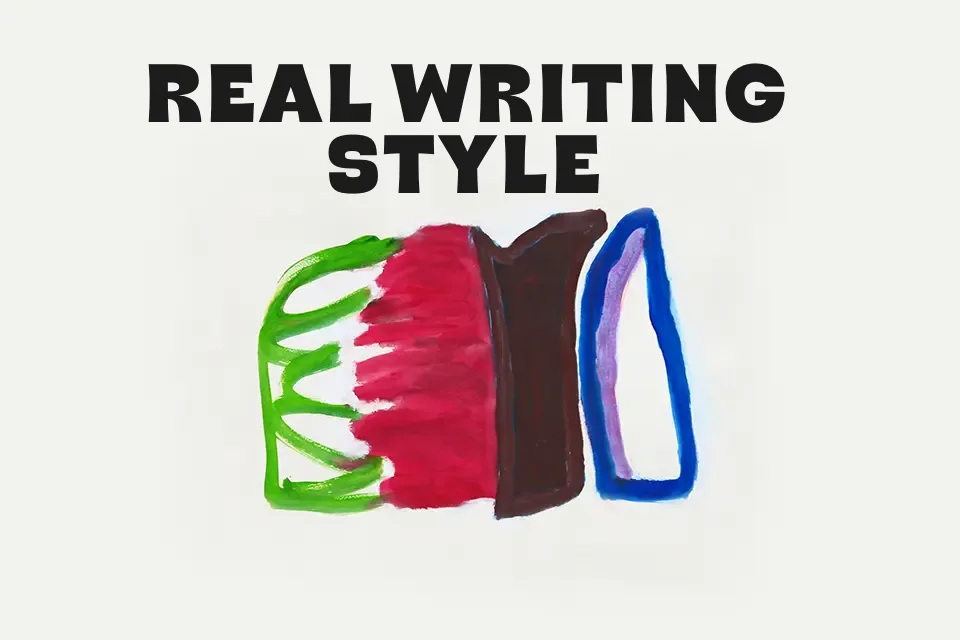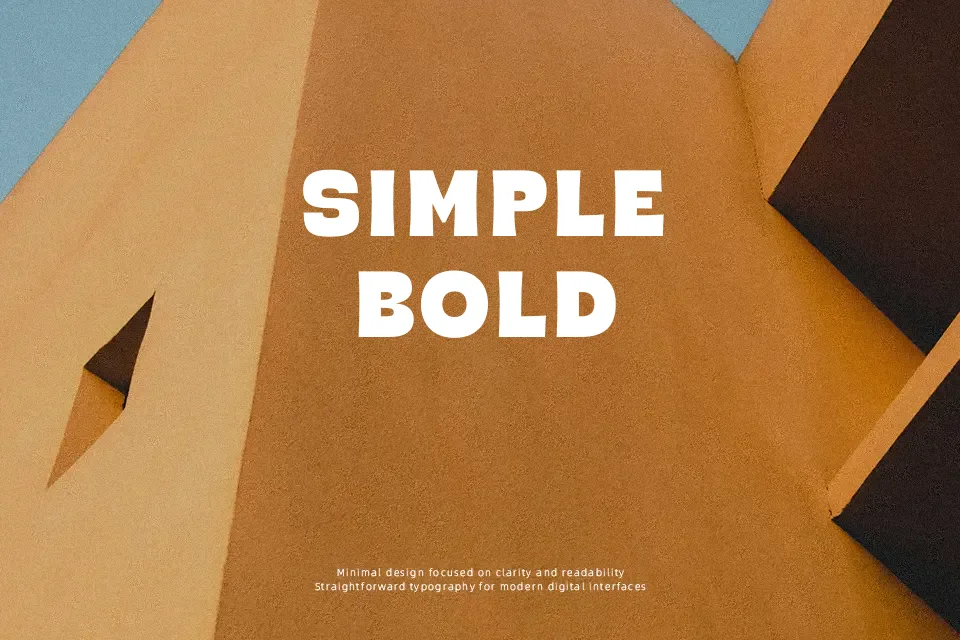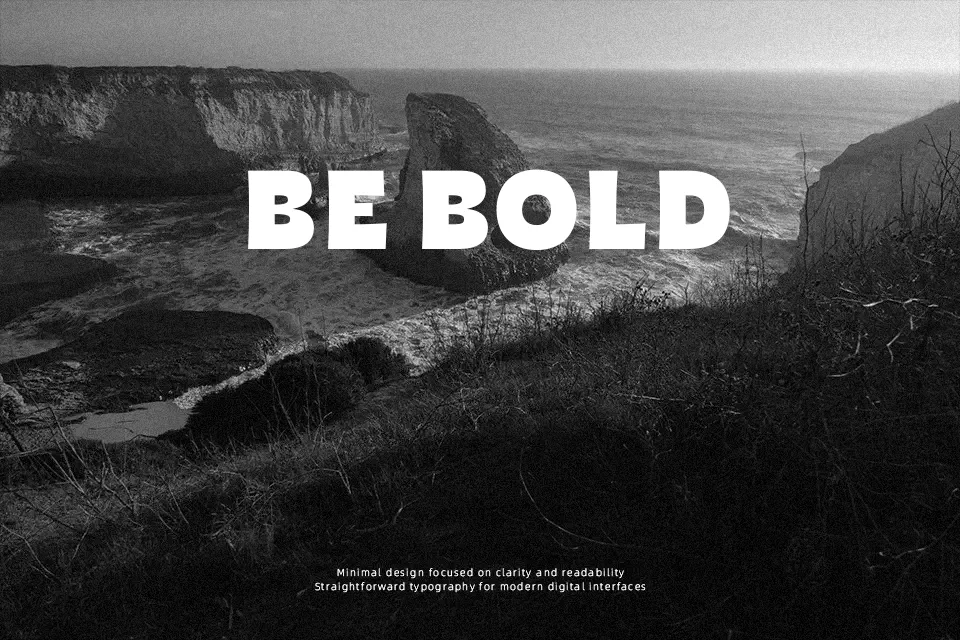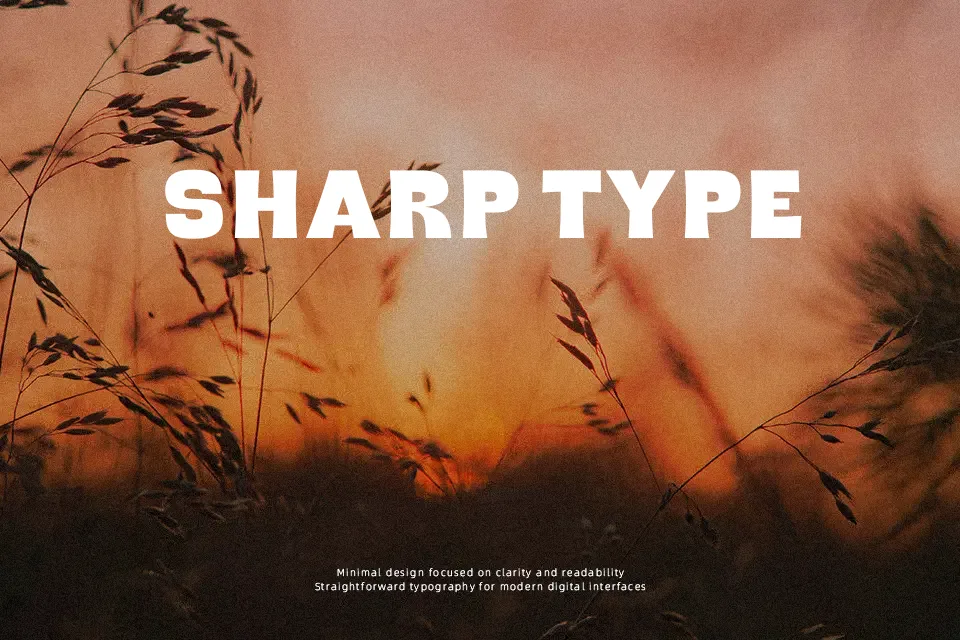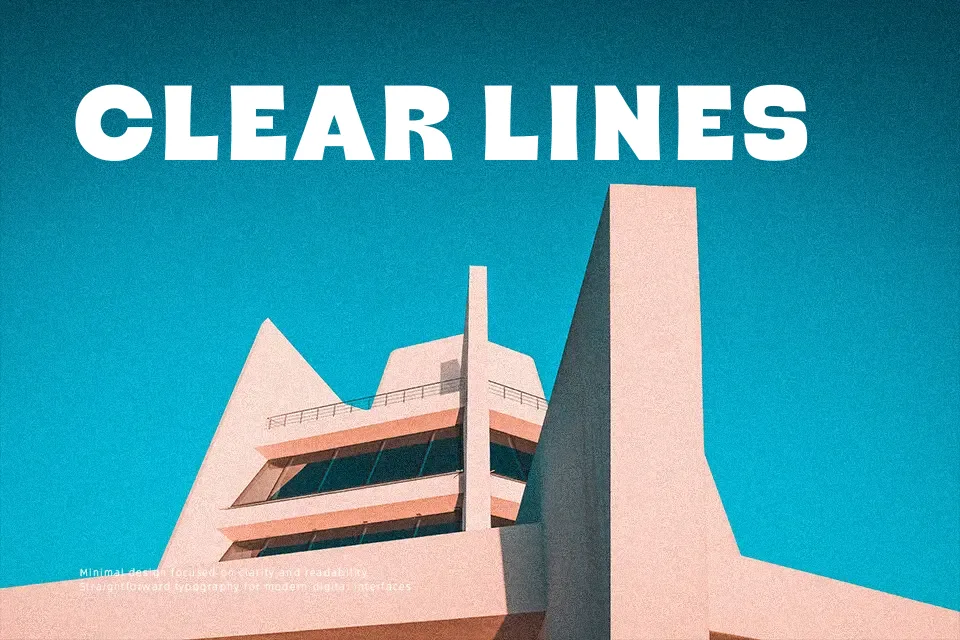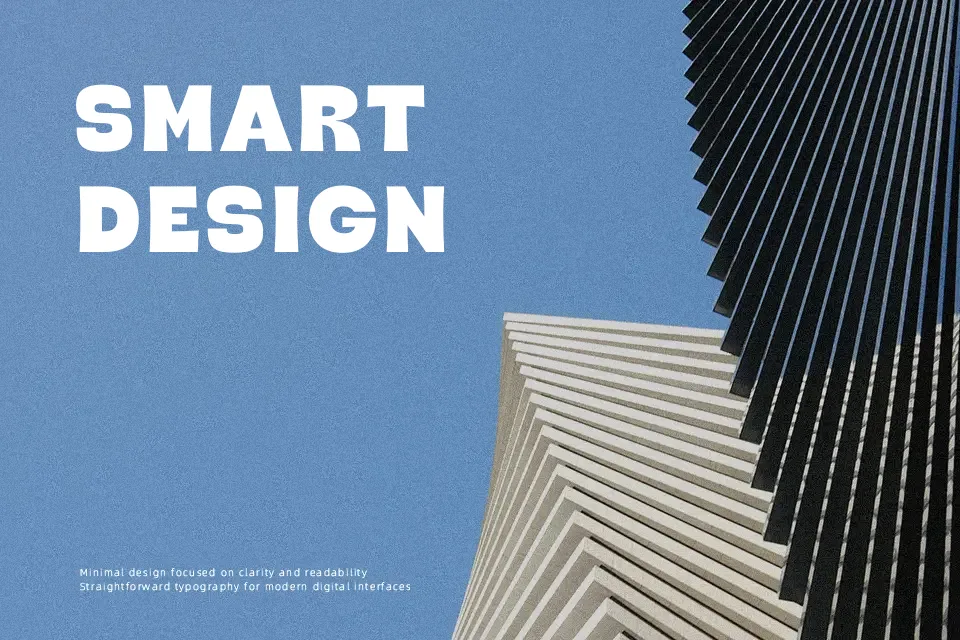
Captoon ES Font
Captoon ES Font delivers an energetic display presence marked by chunky, ultra-heavy letterforms with softened geometric outlines and tight counter-spaces. The solid stroke weights create tremendous contrast against open backgrounds, ensuring that titles remain readable and lively across large digital headers and merchandise graphics. Even character spacing and consistent uppercase balance give short statements an orderly structure without sacrificing their cheerful, animated demeanor. Because the thick strokes crowd interior counters at reduced scales, small captions and dense text blocks can become difficult to decipher. The design performs best when deployed as high-impact headlines where its bold, rounded construction can command immediate visual attention.
Best For: children’s book covers, toy packaging, animated title cards, comic book headlines
Not Ideal For: long paragraph text, corporate reports, mobile app body copy, dense editorial layouts